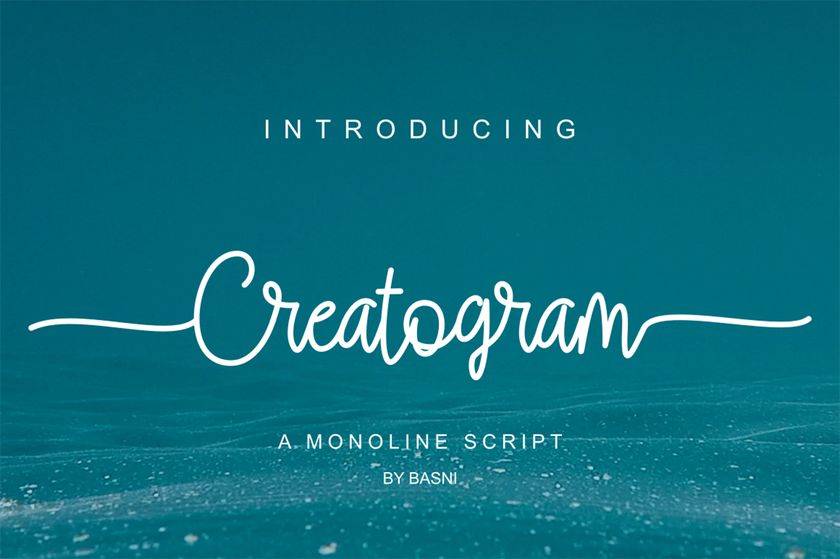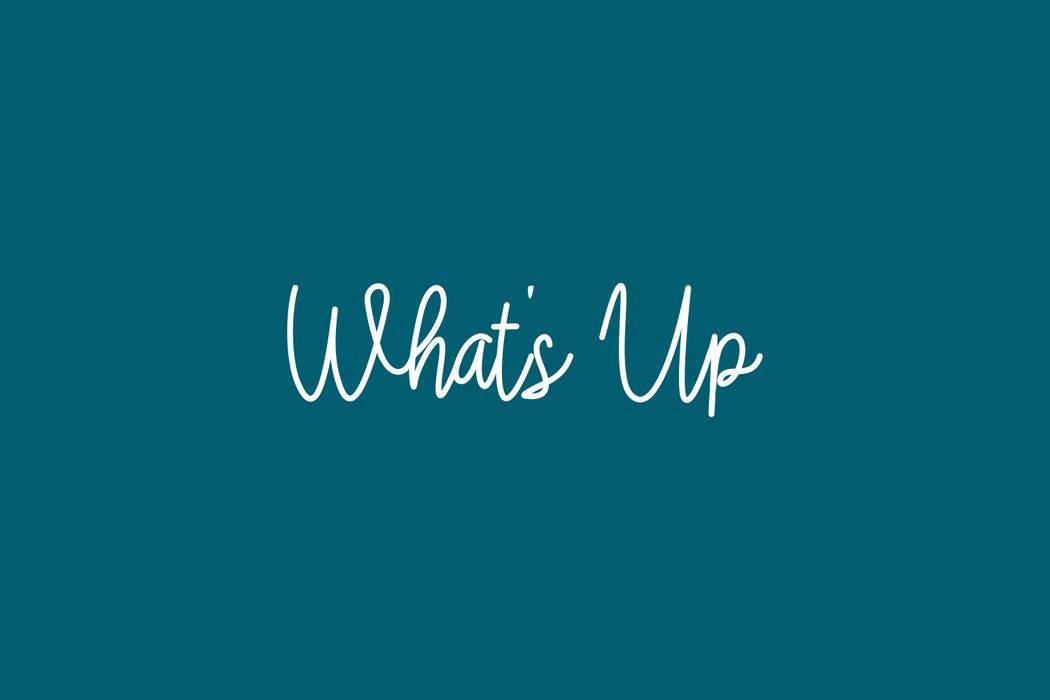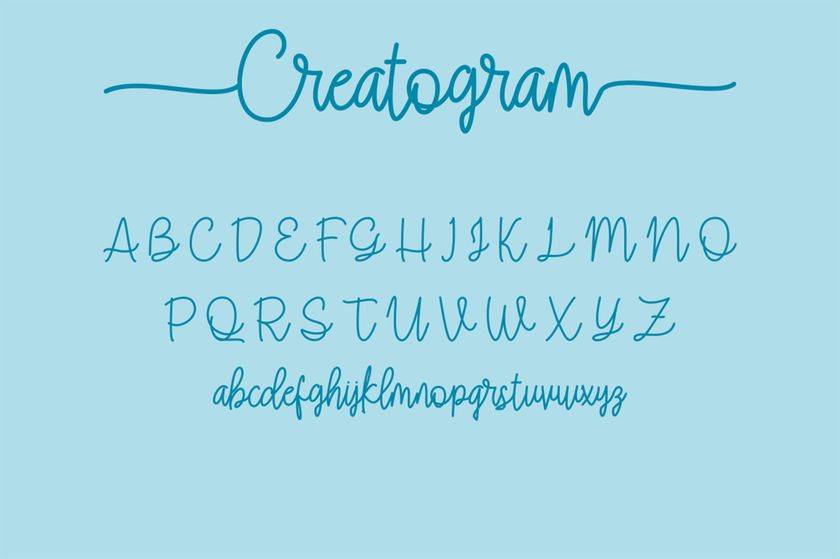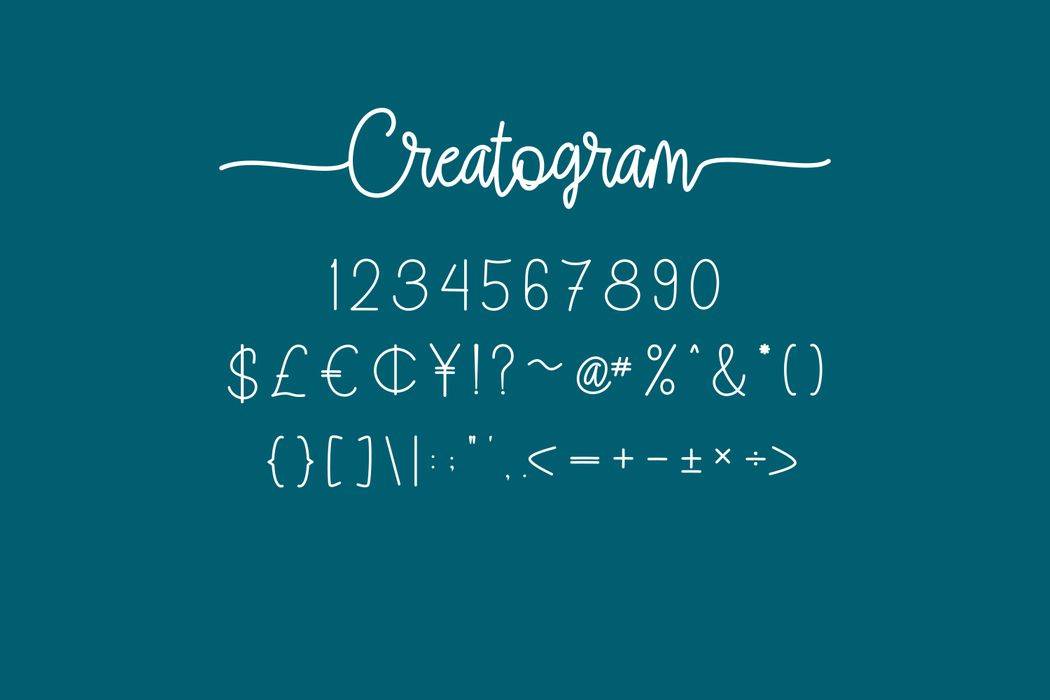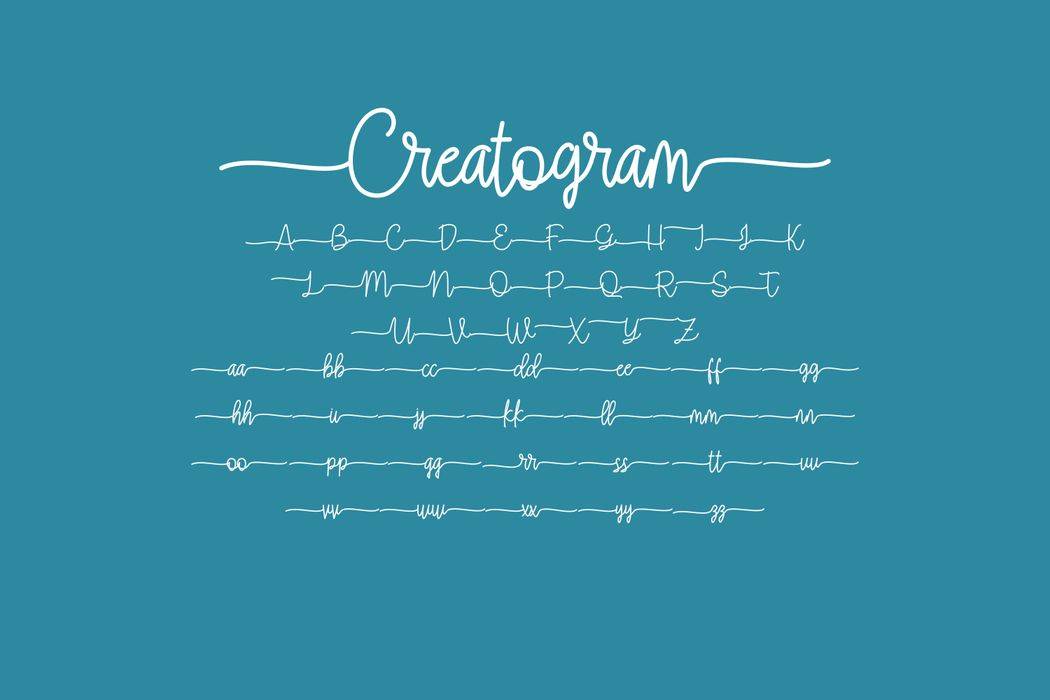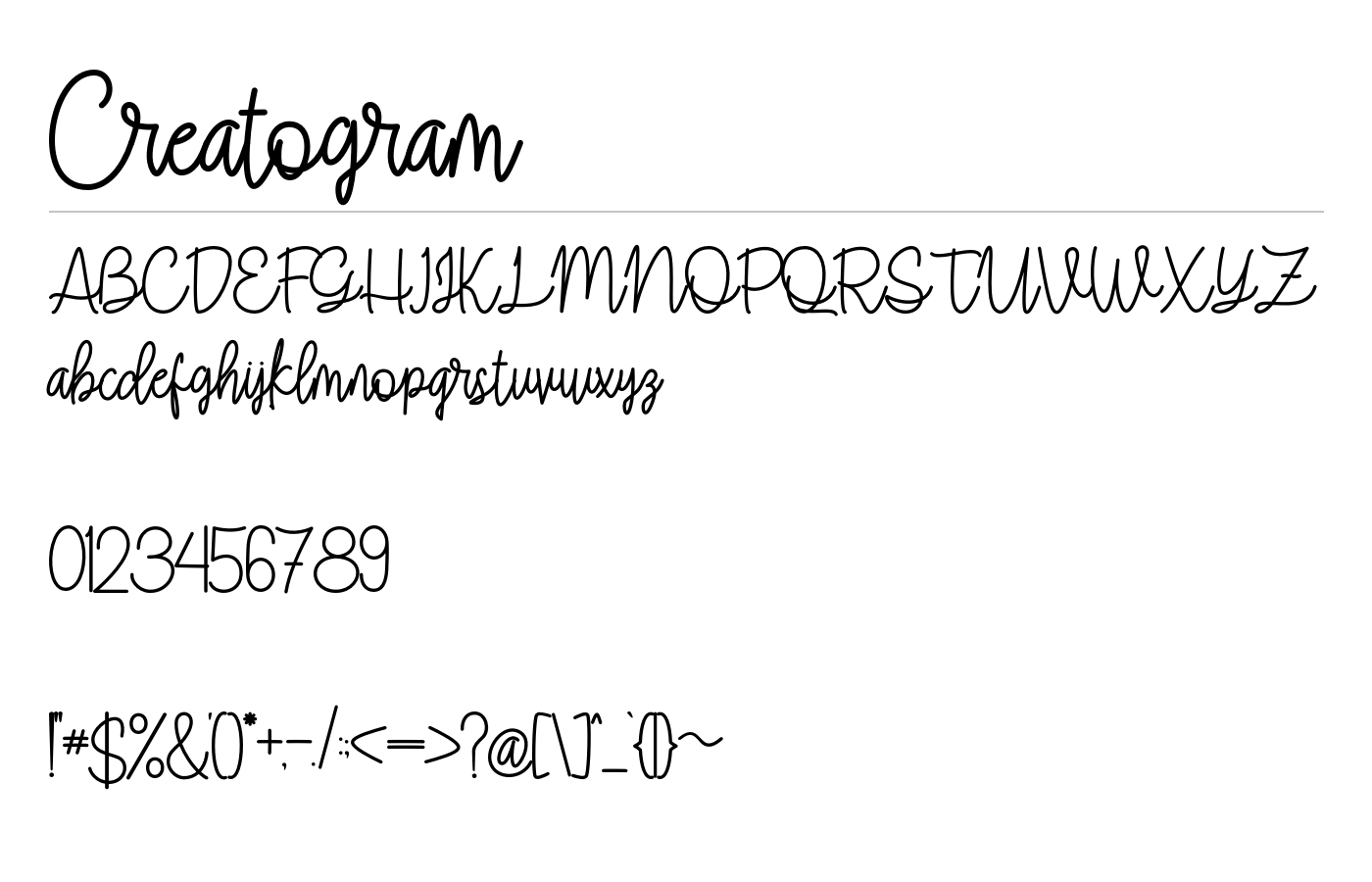
Creatogram is a playful and elegant script font with a delicate, handwritten style that combines smooth, flowing curves and slender strokes. Its tall, narrow letterforms and consistent weight create a light and airy feel, making it perfect for creative projects like invitations, branding, and artistic headlines where a personal, friendly touch is desired. This font works well in any design that seeks a charming and approachable yet refined aesthetic.
Creatogram Font
About Creatogram Font